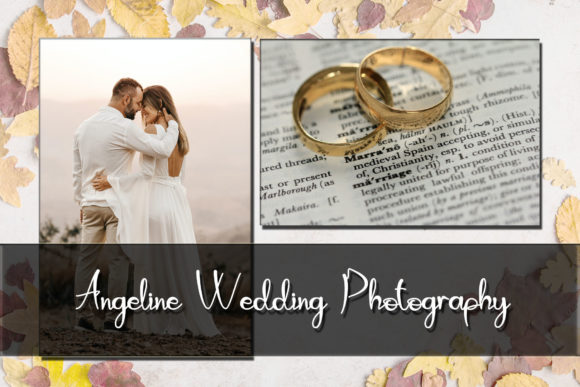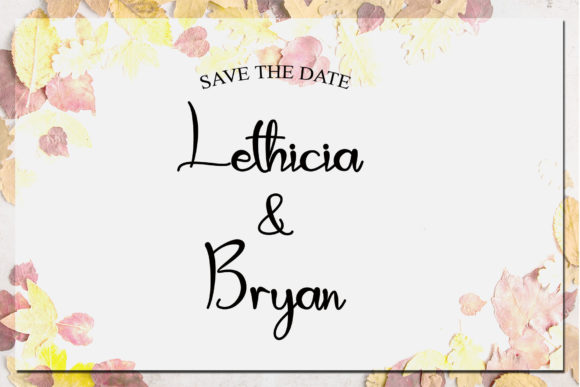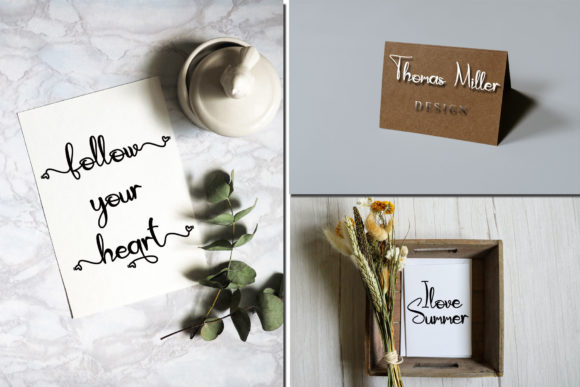
About Leodra Font
Leodra is a romantic and sweet calligraphy typeface with characters that dance along the baseline. It will add a luxury spark to any design project that you wish to create! Leodra font is great for wedding invitations, logos, business cards, brand identity, craft designs, book titles, packaging, and every other design which needs a handwritten touch.